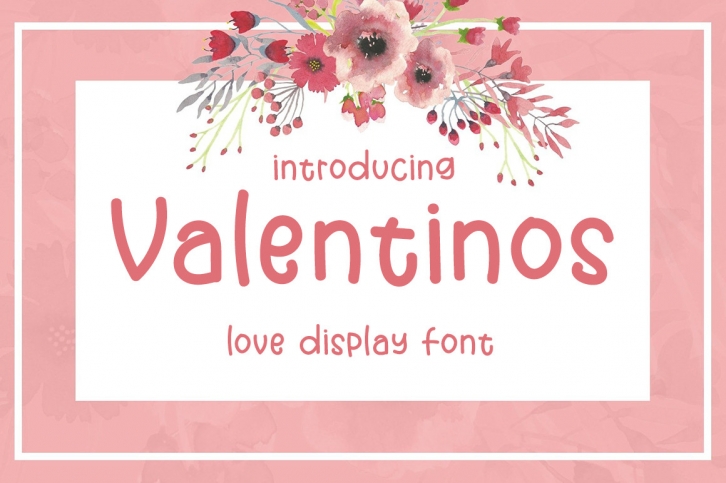
Valentinos is a beautiful and sweet handwritten font. It is fresh, clean, and elegant. This font will look amazing in a great amount of projects, both formal and informal. It will add an incredibly joyful touch to your favorite designs.